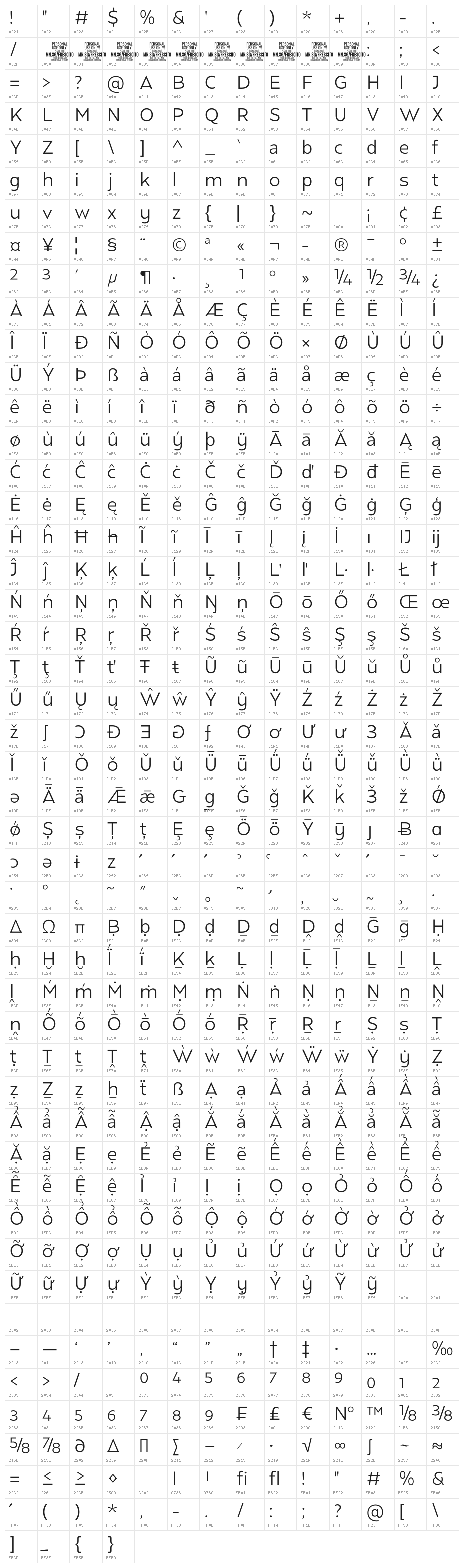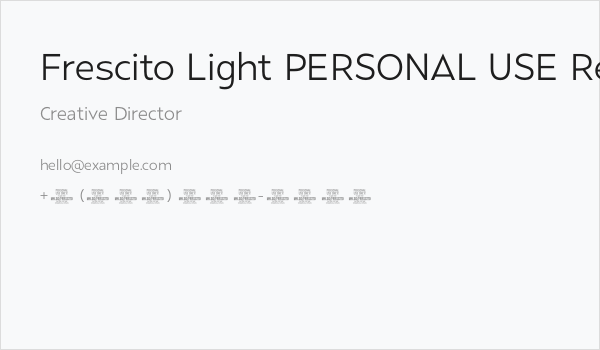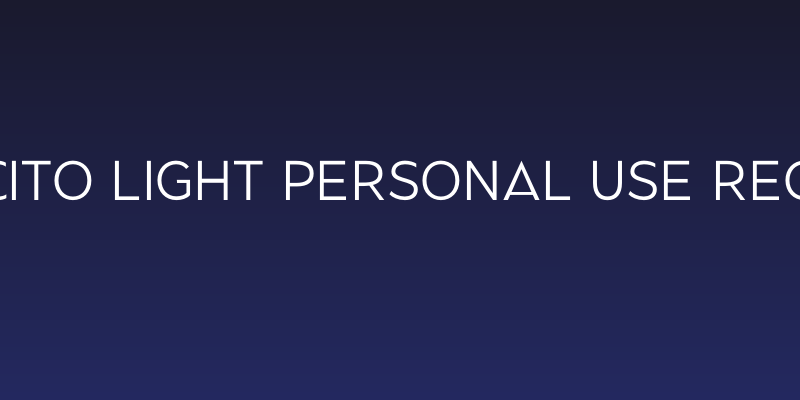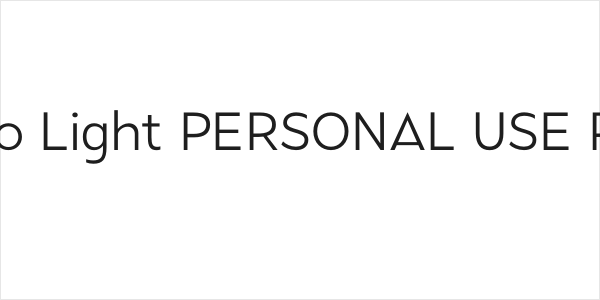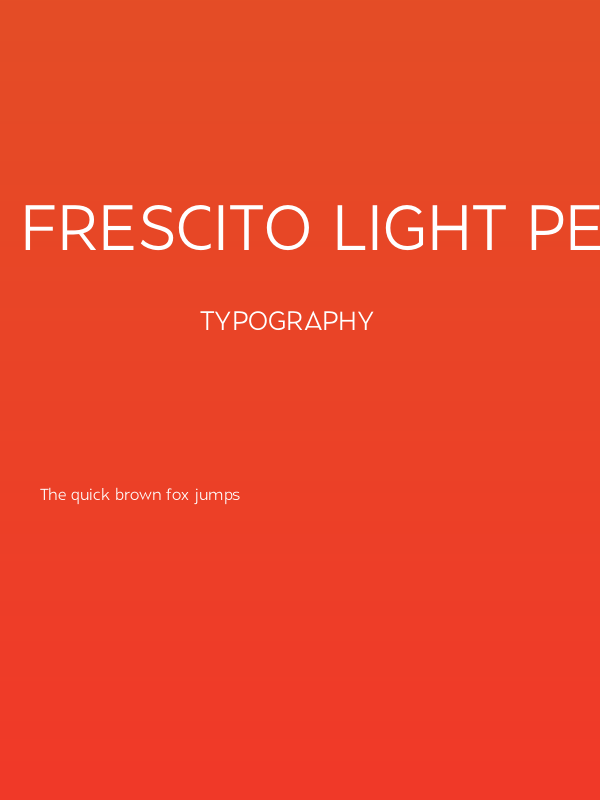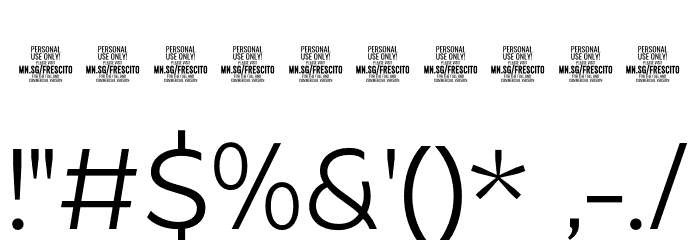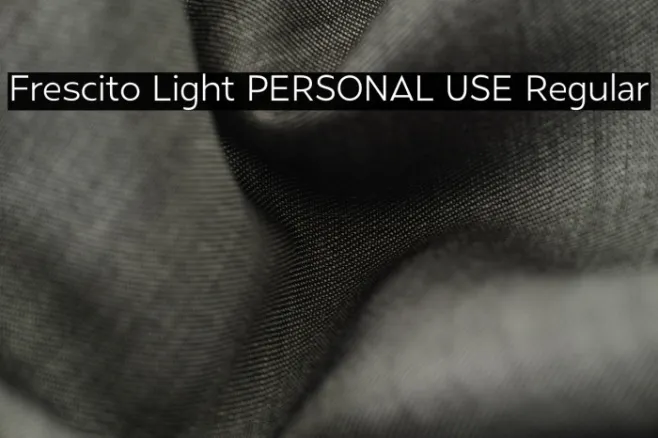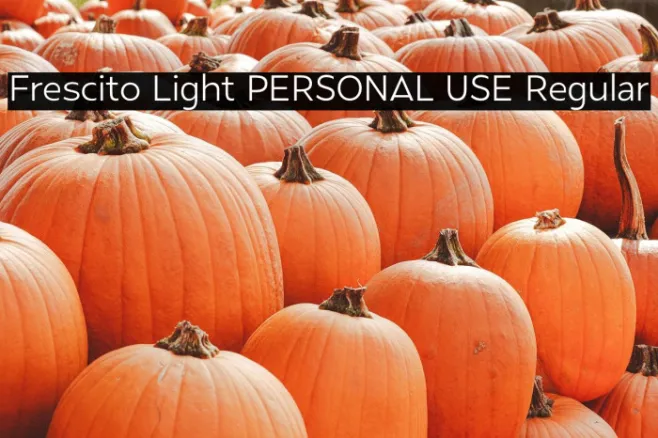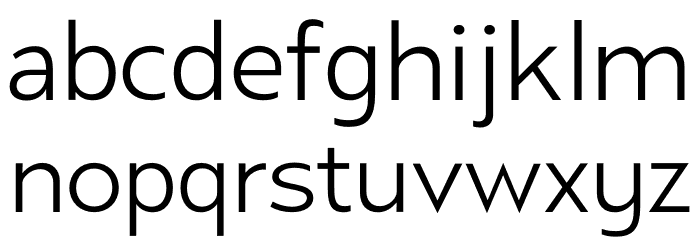
Frescito Light PERSONAL USE Regular Font
✎ Sans Serif
Frescito Light PERSONAL USE Regular Description
This font features a clean and modern sans-serif design with a light weight, making it ideal for a variety of applications. The characters are well-proportioned with a consistent stroke width, providing a harmonious and balanced appearance. The uppercase and lowercase letters maintain a uniform style, while the numerals and special characters are designed to complement the overall aesthetic. The font's simplicity and elegance make it versatile for both digital and print media.
| Use Case | Headlines, Body text, Logos |
| Proposed Projects | Ideal for branding, web design, editorial layouts, and minimalist graphic design projects. |